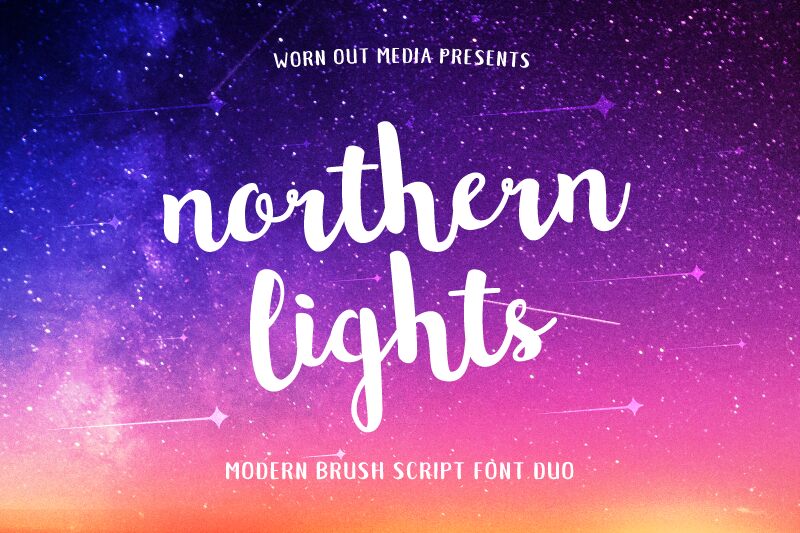
NorthernLights-Script
Northern Lights Script is a captivating brush font that exudes a sense of effortless elegance and rustic charm. Designed by Mats-Peter Forss of Worn Out Media, this font boasts a beautifully organic, hand-lettered aesthetic that evokes the natural beauty of the northern landscape.
The fluid, sweeping strokes and subtle variations in the letterforms give the font a distinctly authentic, handcrafted feel, making it an excellent choice for a wide range of design applications. From wedding invitations and branding materials to editorial layouts and product packaging, Northern Lights Script's versatility and visual appeal make it a standout option for designers seeking to infuse their projects with a touch of refined, natural sophistication.